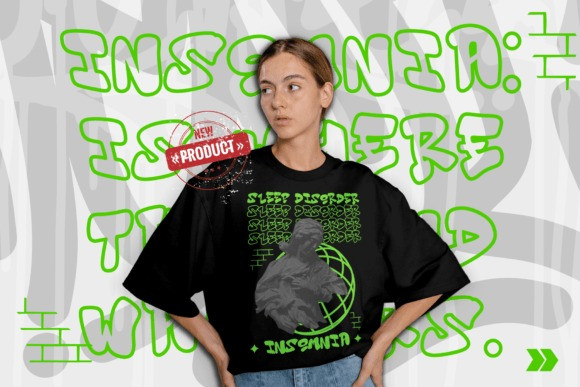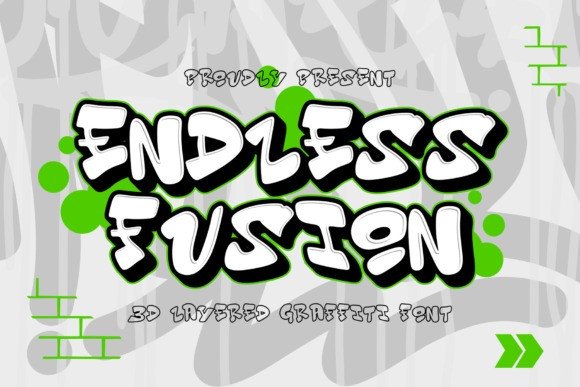
Endless Fusion Font
Endless Fusion Font a layered graffiti font with a 3D twist. Radiating raw energy and modernity, each character of this versatile typeface flaunts smooth rounded edges. Its four eclectic styles – solid, outline, extrude, and inner shadow envelope each text, enhancing its visual appeal and structural depth. With Endless Fussion, you can breathe life into your graffiti or street-styled projects – be it streetwear apparel, captivating social media captions, avant-garde website graphics, or other city-influenced ventures. Its diverse styles, coupled with the bold, edgy demeanor, jet propel designs into the spotlight, infusing a potent, contemporary ambiance.